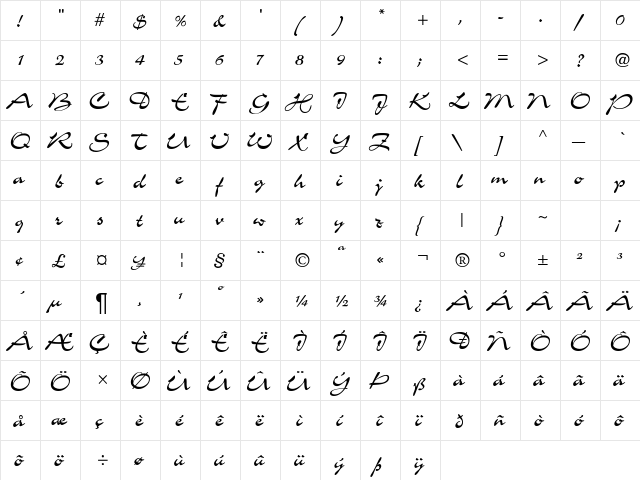
CharmantDB Normal
Design Context for CharmantDB Typeface
CharmantDB is a composed and adaptable typeface that performs quietly and consistently across a wide range of design contexts.